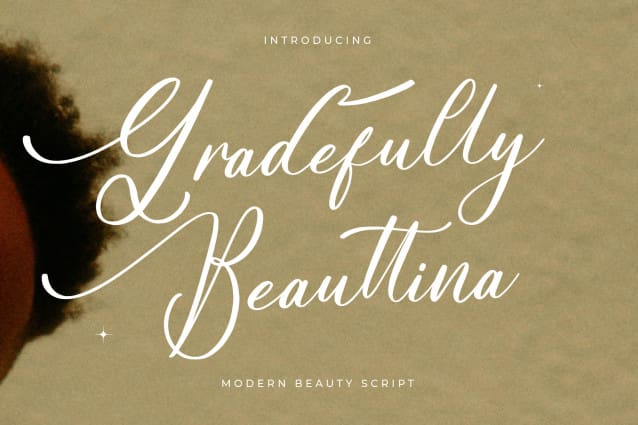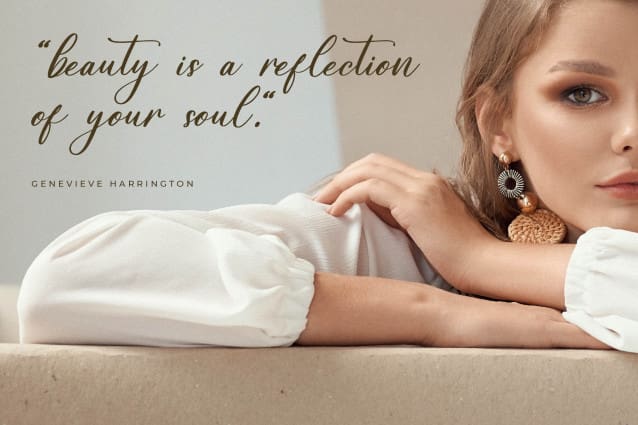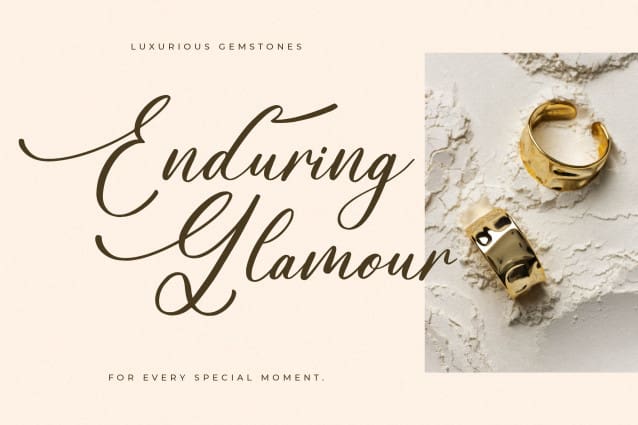
Gradefully Beauttina Font
Gradefully Beauttina Font – Modern Beauty Script , from Letterena, is a Luxury Script font, suitable for any projects such as: logos, branding projects, homeware designs, product packaging, mugs, quotes, posters, shopping bags, t-shirts, book covers, name card, invitation cards, greeting cards, label, photography, watermark, special events, and all your other luxury and beautiful projects that need a Luxury serif taste.